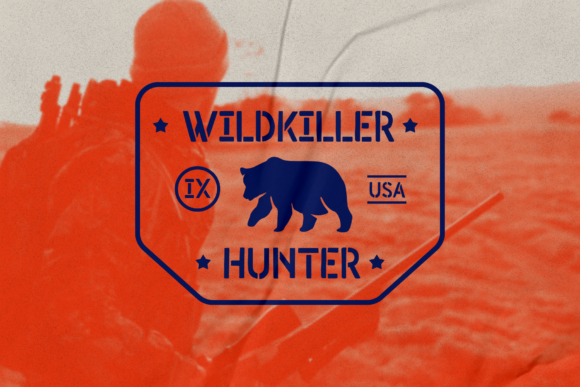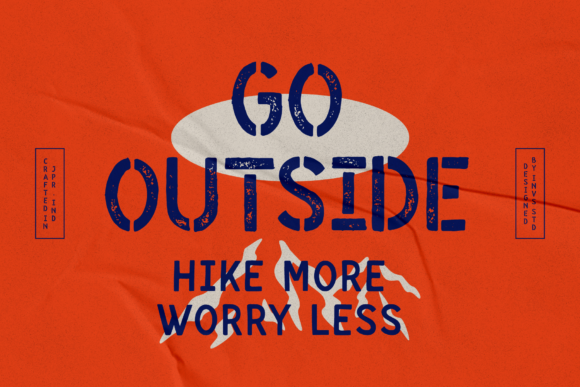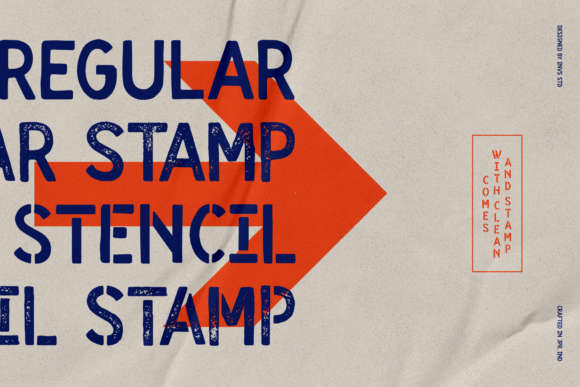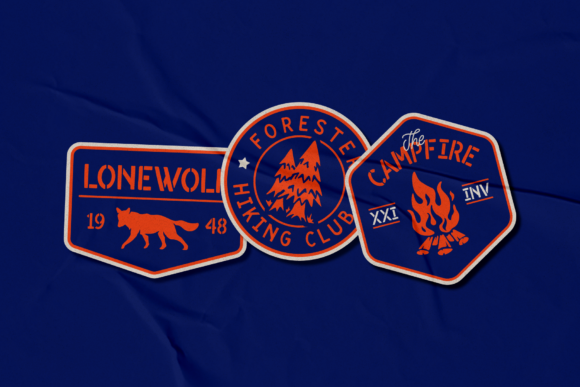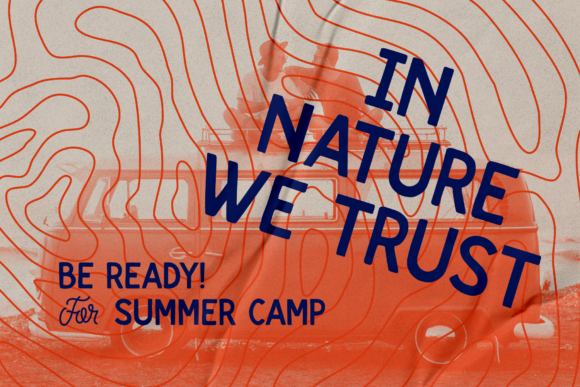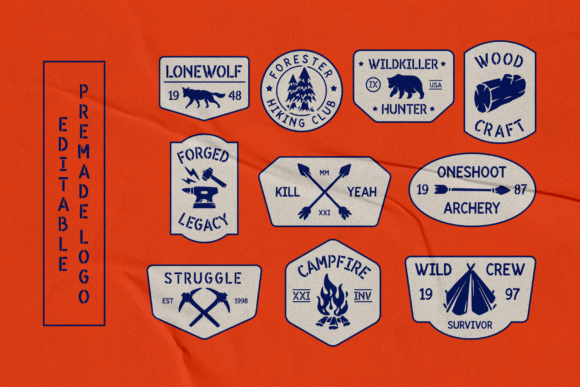
Unleash Your Inner Adventurer with Amateur Hunter Font
There’s something about stepping into a dusty antique shop, surrounded by vintage posters and forgotten relics, that sparks the creative spirit. You start to imagine the stories behind each worn-out print, the people who held them, and the adventures they embarked upon. It’s in these moments that the perfect font can transport you to a bygone era, and Amateur Hunter Font is no exception.
Amateur Hunter is a bold, vintage-styled display font designed to make a statement. Whether you’re creating a poster, flyer, or print, this font is sure to turn heads. Its cool, rugged charm is perfect for designers looking to add a touch of nostalgia to their work. With Amateur Hunter Font, the possibilities are endless, and we can’t wait to see what you create.
Amateur Hunter Font Key Features
- Font Size: The font comes in 2 font sizes: Regular and Condensed, allowing for flexibility in design applications.
- Unique Characteristics: The font features a unique, hand-drawn style with a distressed texture, giving it a rustic and vintage feel.
- Character Set: The font includes a comprehensive character set, including uppercase and lowercase letters, numerals, punctuation marks, and special characters.
Amateur Hunter Font Review
I recently had the chance to work with the Amateur Hunter Font, and I must say it’s a unique and quirky addition to any design project. ✨ One thing that really stands out is its hand-drawn feel, which gives it a certain charm and character that’s perfect for projects that need a bit of whimsy.
The font’s varied weights and styles also make it highly versatile, allowing you to create a range of different looks and moods. ✨ Whether you’re going for a rustic, outdoorsy feel or something more modern and sleek, Amateur Hunter can adapt to suit your needs.
While Amateur Hunter is a great font in many ways, it does have some limitations that should be taken into account. ⚠️ For one, it’s not the most legible font at smaller sizes, which can make it difficult to use in situations where text needs to be read quickly or easily.
- Limited legibility at smaller sizes
- May not be suitable for large blocks of text
- Not ideal for projects that require a high level of professionalism
Overall, I think Amateur Hunter is a great addition to any designer’s toolkit, but it’s essential to use it thoughtfully and in the right context. With its unique charm and versatility, it’s perfect for projects that need a bit of personality and flair. However, it’s not a good choice for every situation, and designers should be aware of its limitations before using it.
The Amateur Hunter Font is ideal for use in outdoor-themed designs, such as camping, hunting, or fishing advertisements. It can also be used for rustic or vintage-style designs, such as wedding invitations or restaurant menus.
To get the most out of the Amateur Hunter Font, try pairing it with other distressed or vintage-style fonts for a unique and eye-catching look. Experiment with different font sizes, colors, and settings to create a design that stands out.